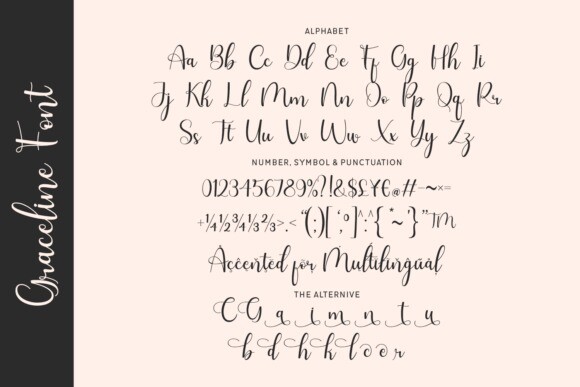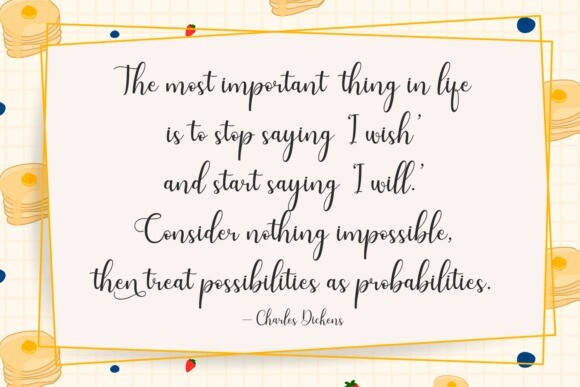
Graceline Font
Graceline Font is a beautiful swash script font that features elegant, flowing letters. It has a stylish and artistic look, making it perfect for invitations, greeting cards, and any project where you want to add a touch of grace. The curves and swirls of the letters give it a fancy feel while still being easy to read.